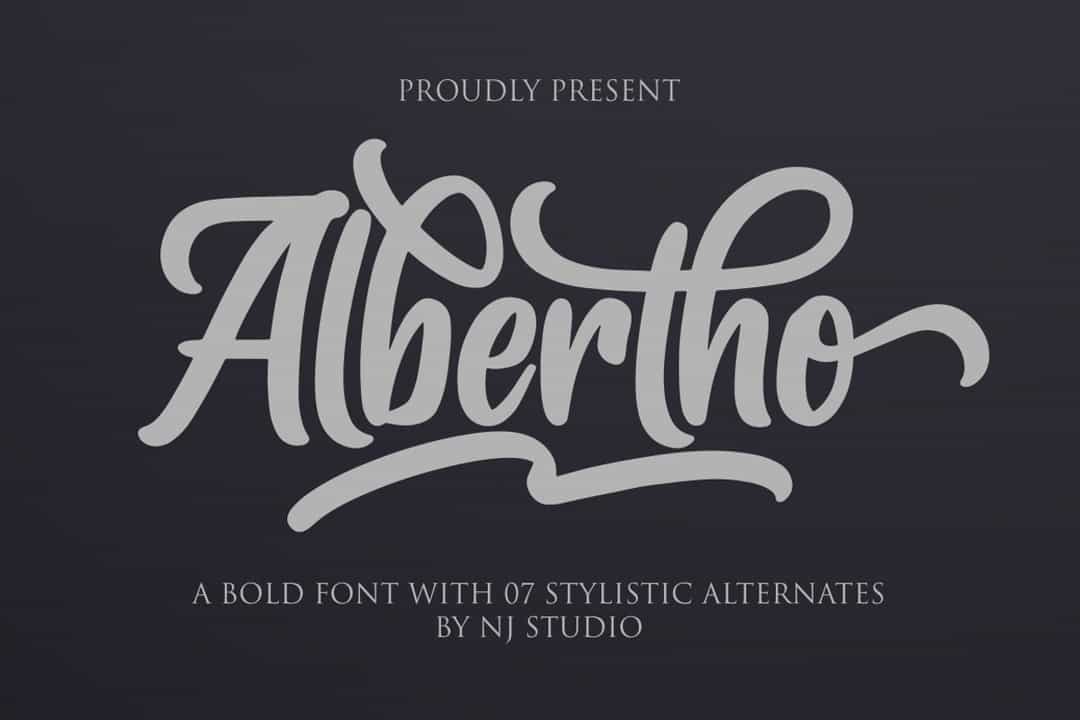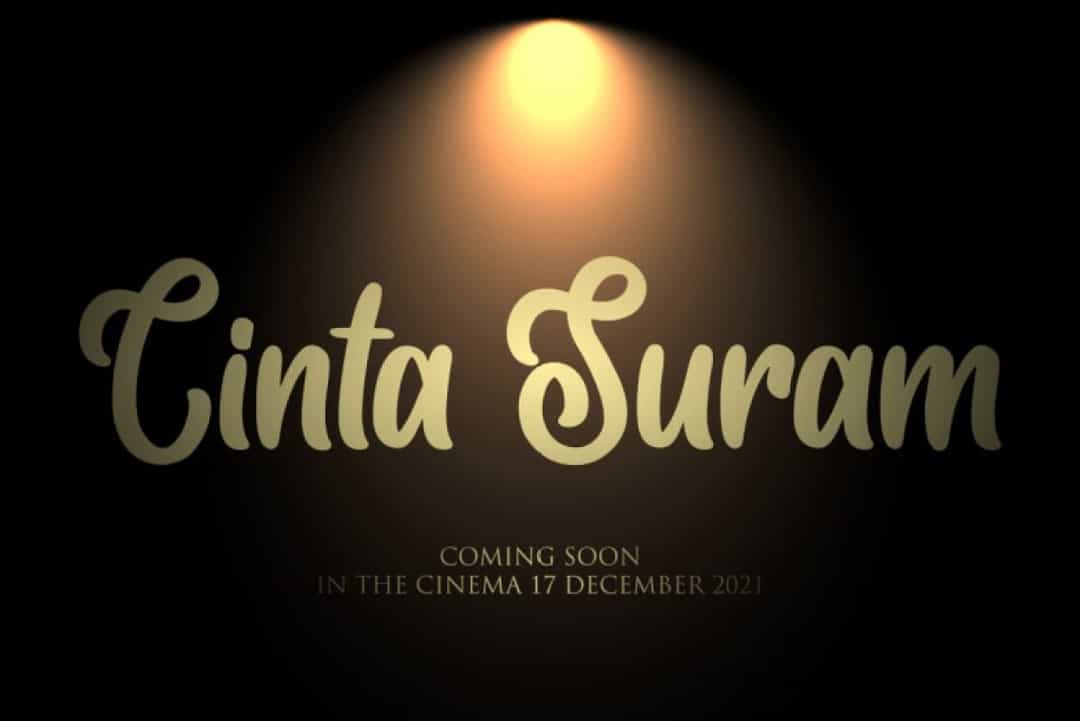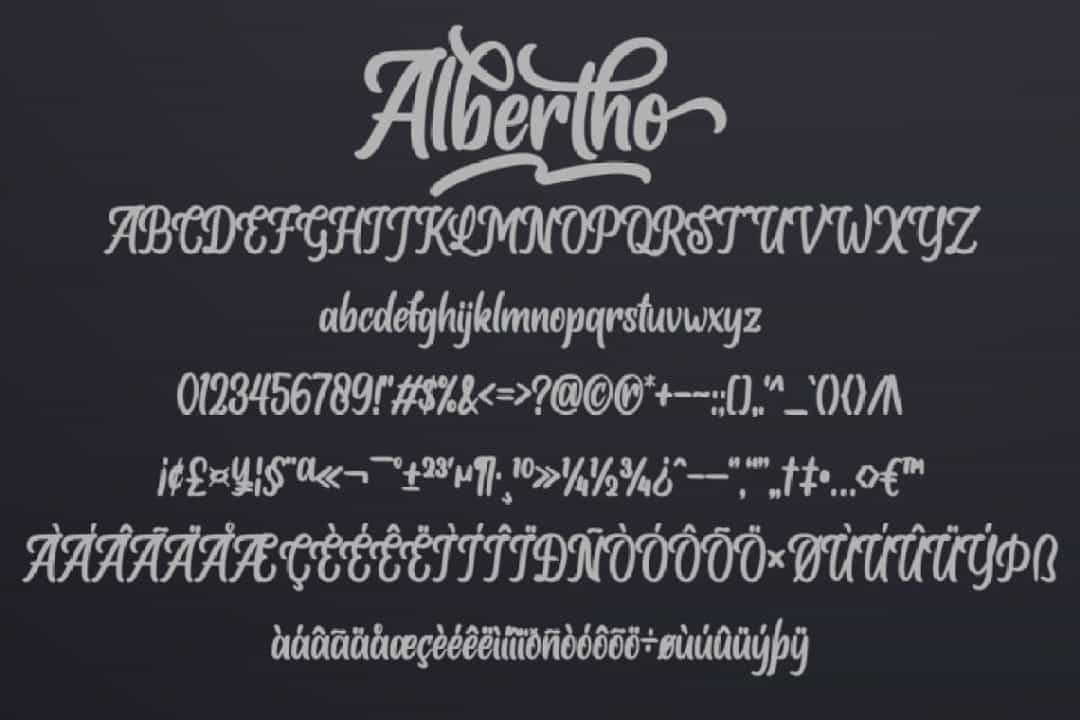
Discover Albertho Bold Script Font, part of the Brush Calligraphy Script collection—a versatile and unique font perfect for adding a personal touch to your projects. Download it for free and enjoy crafting designs with style, from invitations to social media posts. This font is available exclusively for personal use, giving you the freedom to create without limits. Unlock your creativity with Albertho Bold Script Font today!
Here is the preview of Albertho Font for you. It has a modern and fluent type of script that will draw everyone’s focus towards the styled. It is an ideal font for logos, branding projects, wedding designs and advertisement, social media posts, packaging of products, design and labels, photography, watermark invitation, stationery and any works that requires handwriting.